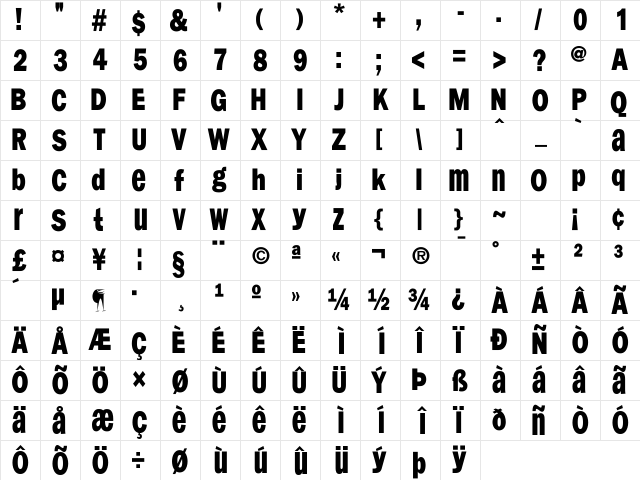
Complete AIFranklySpoken Regular glyph index. Displaying only characters natively supported by AIFranklySpoken Regular font.
AIFranklySpoken is a composed and adaptable typeface that performs quietly and consistently across a wide range of design contexts.
Pro Tip: Use AIFranklySpoken in both headline and body roles to test its range before committing to a single application.